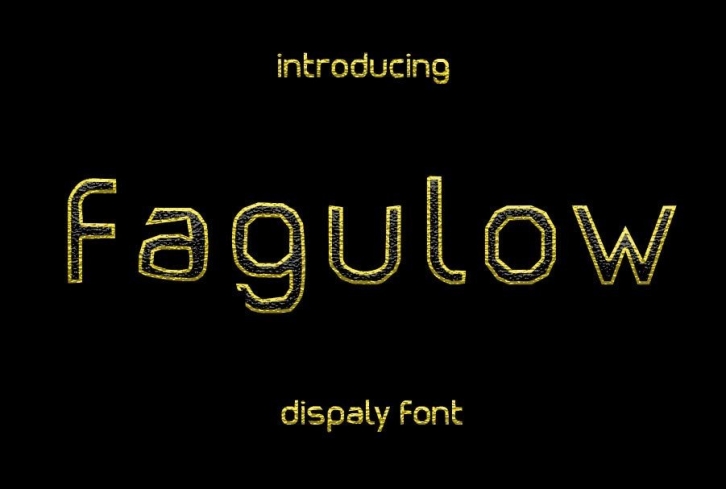
Fagulow is a modern calligraphy typeface, which combines the style of classic calligraphy with a modern style. combines from copperplate to contemporary typeface with a dancing baseline, modern and elegant touch.